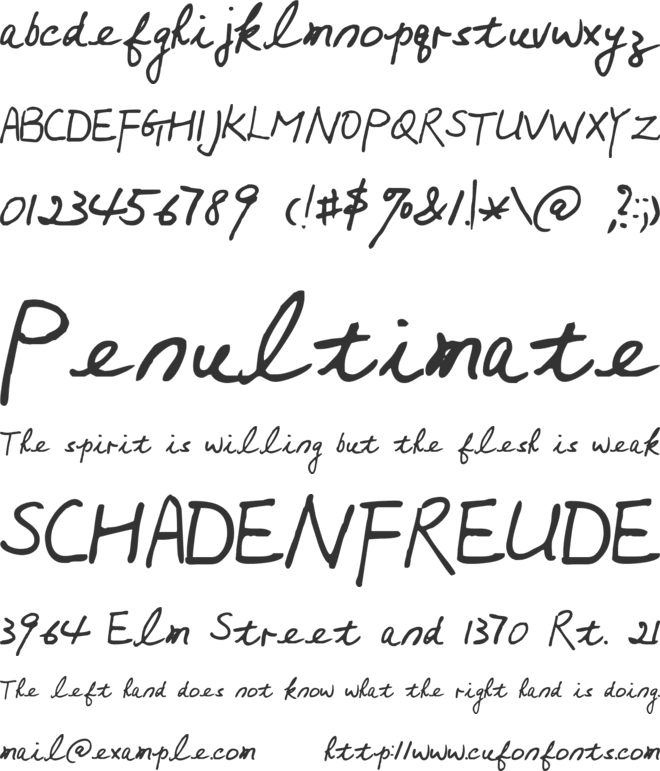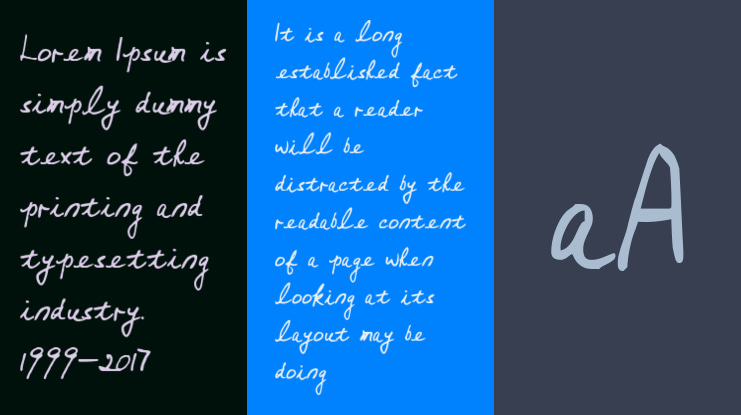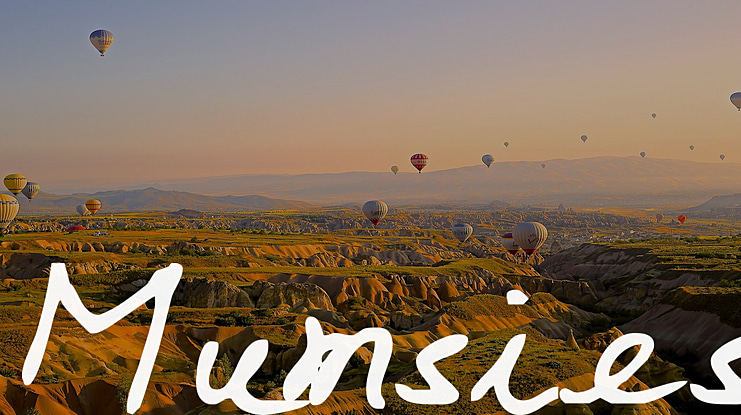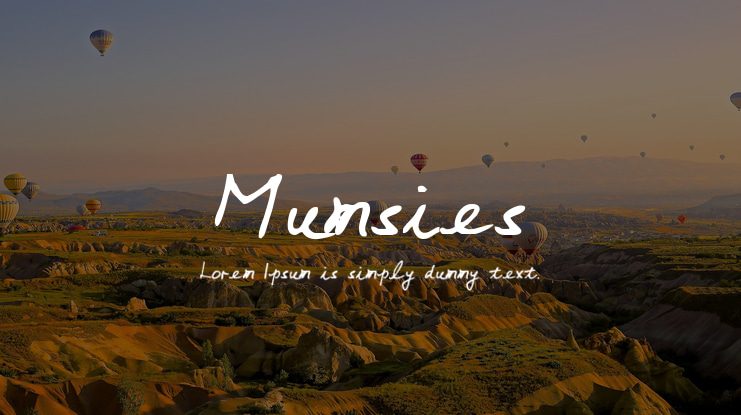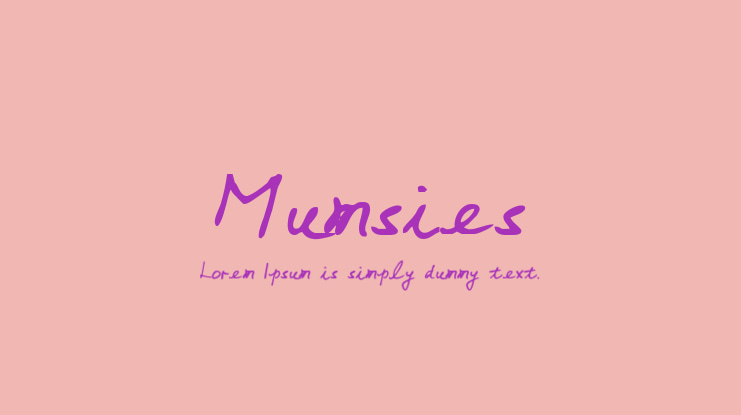
Mumsies Font
What's the date of my parents' silver anniversary? You've got it right up there! This is my mom's handwriting. Her name is Pui Wah but most people call her Tina.